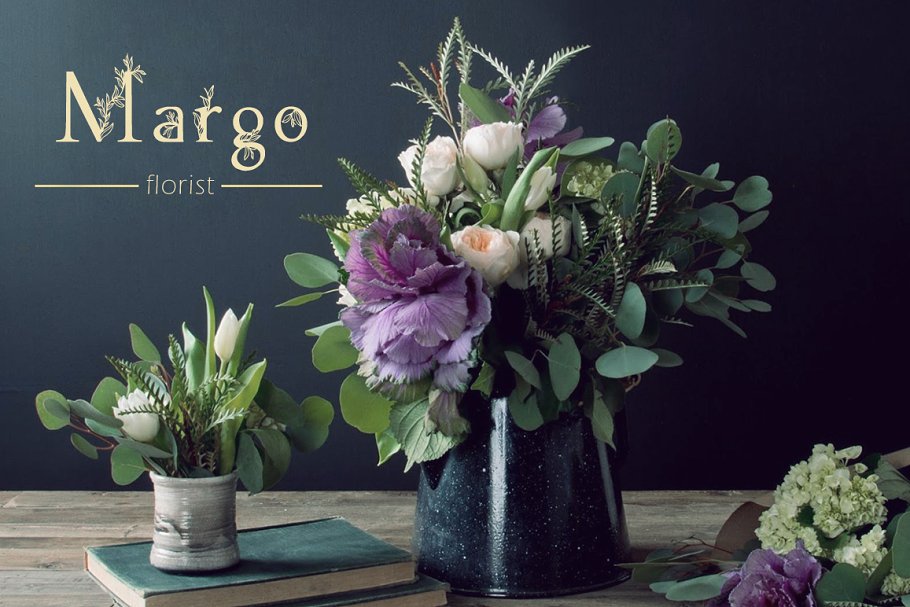
Introducing The Golden Leaves, a captivating floral font that will elevate your designs and leave a lasting impression. Created by the talented Polina Chistyakova, this font is inspired by the beauty of nature and the enchanting colors of autumn. Whether you're designing business cards, wedding invitations, logos, or branding materials, The Golden Leaves is the perfect choice to add a touch of elegance and uniqueness to your creations.
With The Golden Leaves, you can effortlessly emphasize your own style and make your text stand out. This font comes in both OTF and TTF formats, ensuring compatibility with a wide range of design software. Additionally, all letters (A-z), numbers, and punctuation marks are also available in PNG format, allowing you to easily incorporate them into your designs.
But that's not all! The Golden Leaves also offers a delightful surprise - golden leaves in SVG format. These colored fonts with the texture of golden foil will add a touch of luxury and sophistication to your projects. However, please note that color fonts may not be fully supported by all programs. For optimal display, we recommend using Illustrator CC 2018+ and Photoshop CC 2017+, as well as Mac native apps like Pages, Keynote, TextEdit, and Safari.
In conclusion, The Golden Leaves is not just a font, it's a work of art that will breathe life into your designs. Don't miss out on the opportunity to create stunning visuals with this captivating floral font. Order now and let your creativity bloom!